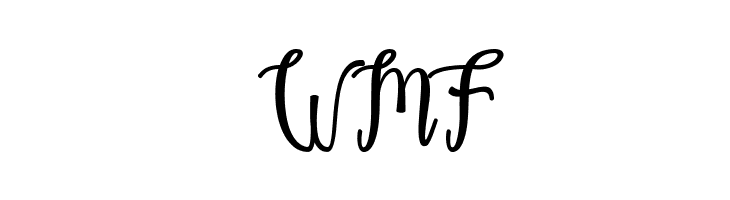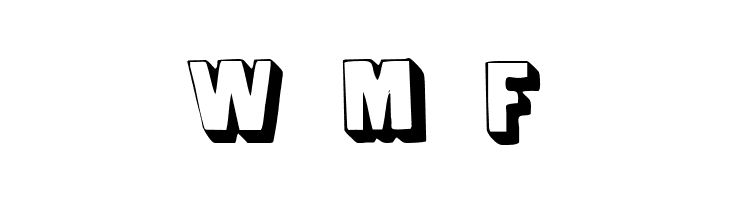
A sleek, ultra-light, modern font with a geometric and minimalist design.
A modern, textured font with a glitch-like, dynamic appearance.
A modern, geometric font with elegant lines and a sleek design.
A high-contrast, elegant font with a modern and sophisticated style.
A bold, high-contrast font with a dramatic and elegant style.
A dynamic brush script font with bold, fluid strokes and a hand-painted look.
A classic serif font with bold strokes and high contrast, exuding elegance and tradition.
A modern, cursive font with bold, flowing strokes and a dynamic appearance.
A bold, 3D font with a playful, cartoonish style and shadowed effect.
A bold, high-contrast font with thick, block-like characters.
A lively, flowing script font with elegant, cursive letterforms.
A classic serif font with high contrast and elegant curves.
A pixelated, grid-based font with a retro digital aesthetic.
A sleek, modern font with tall, narrow characters and high contrast strokes.
A bold, brush-style script font with dynamic and expressive characters.